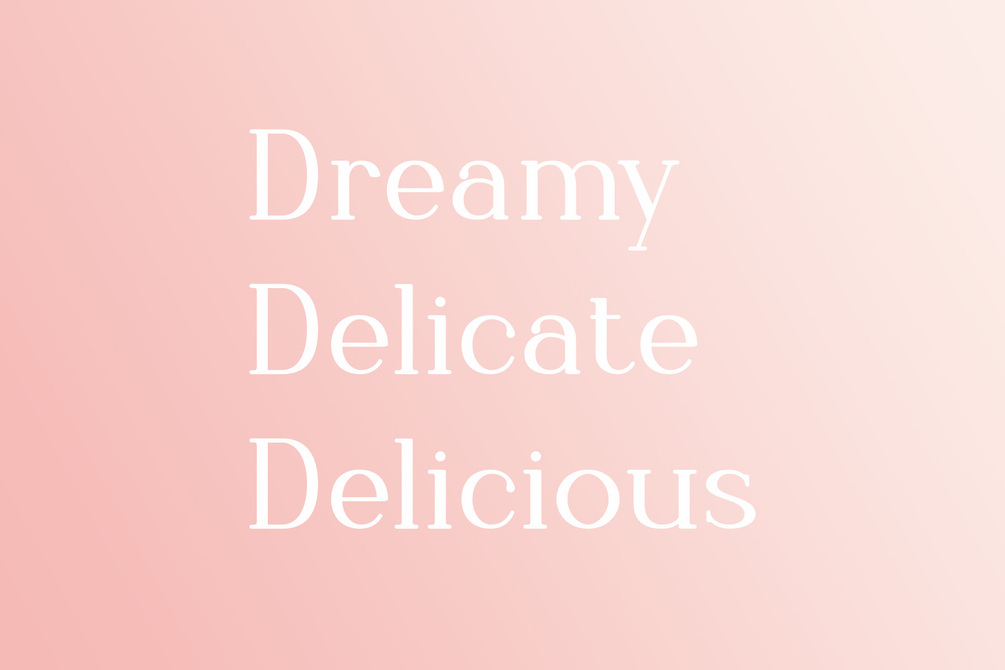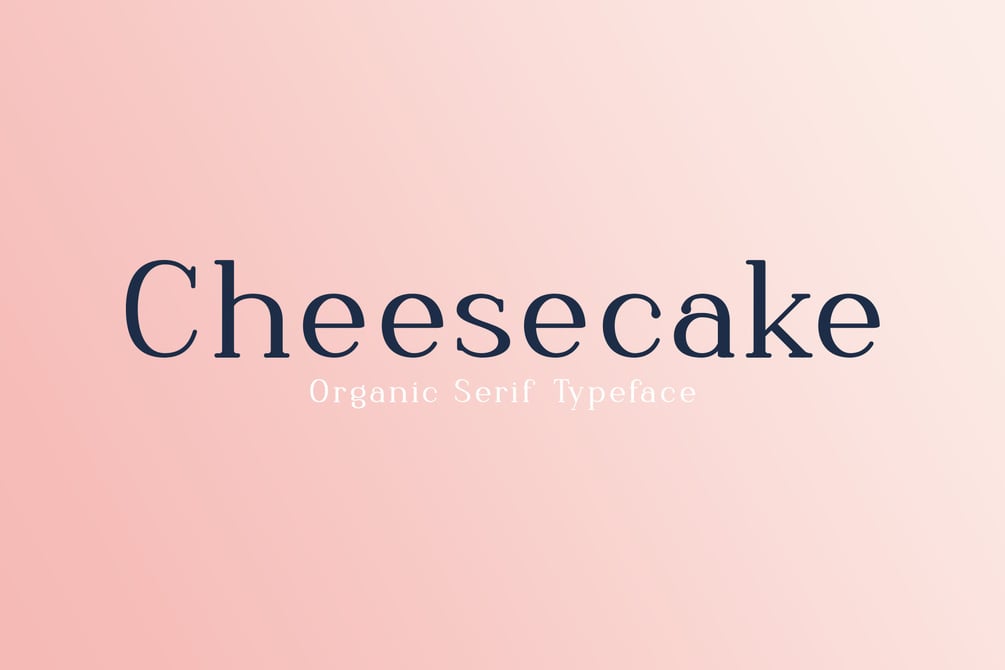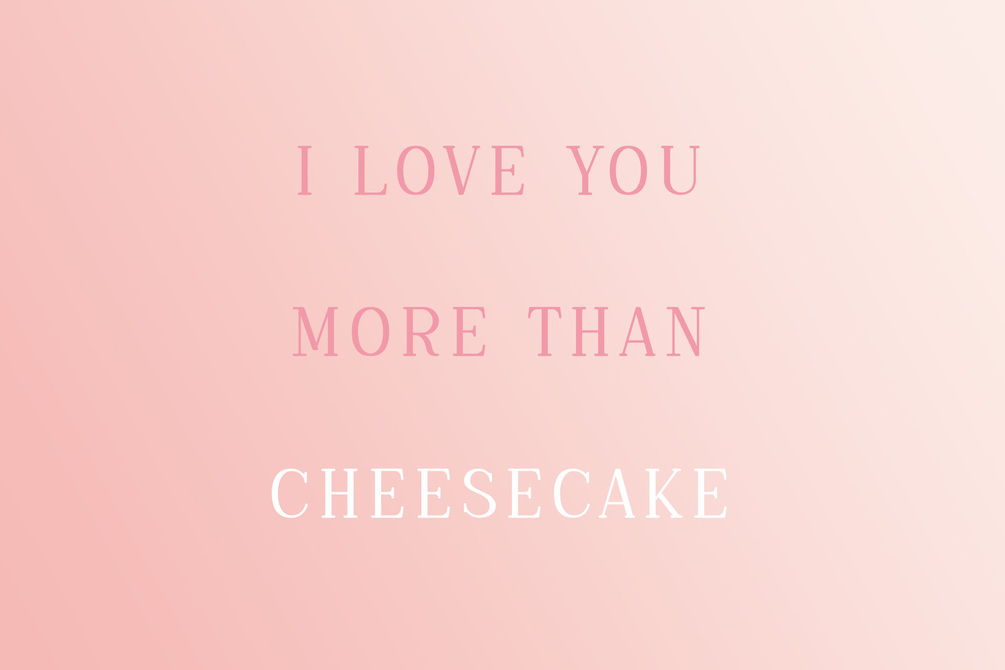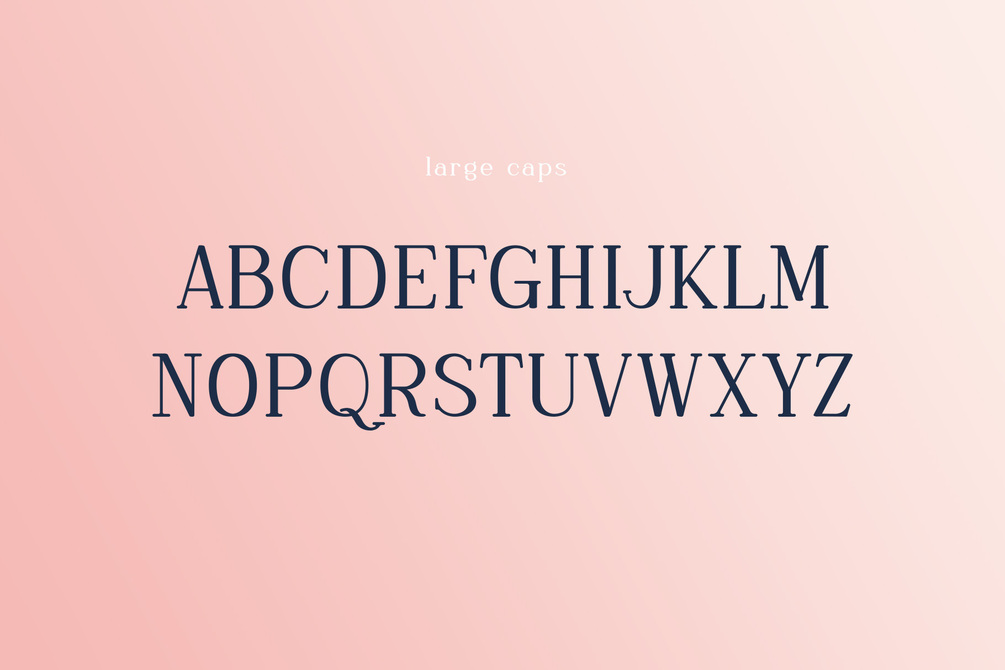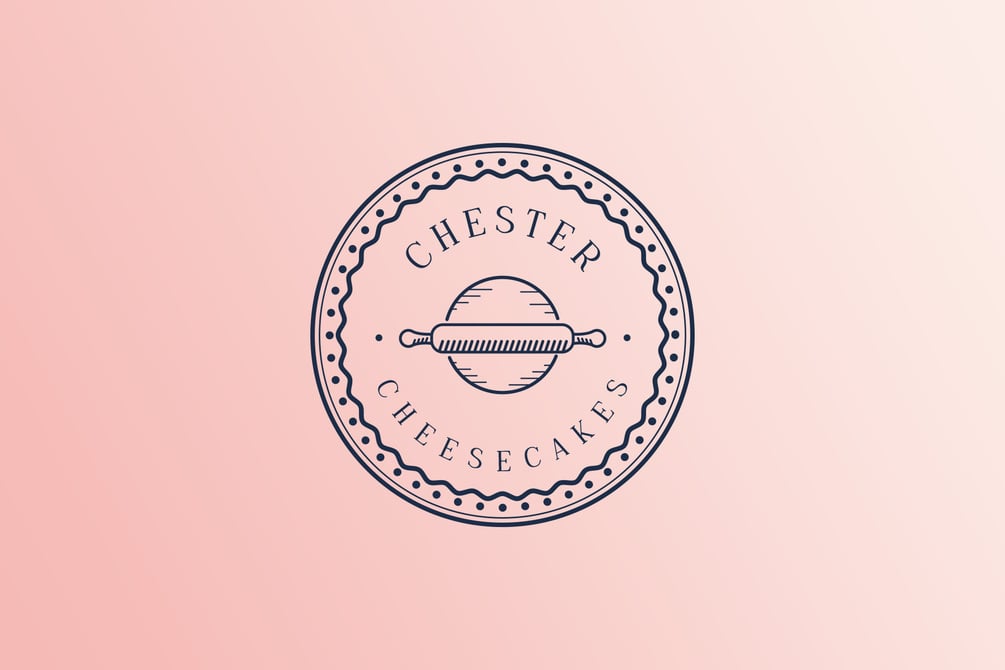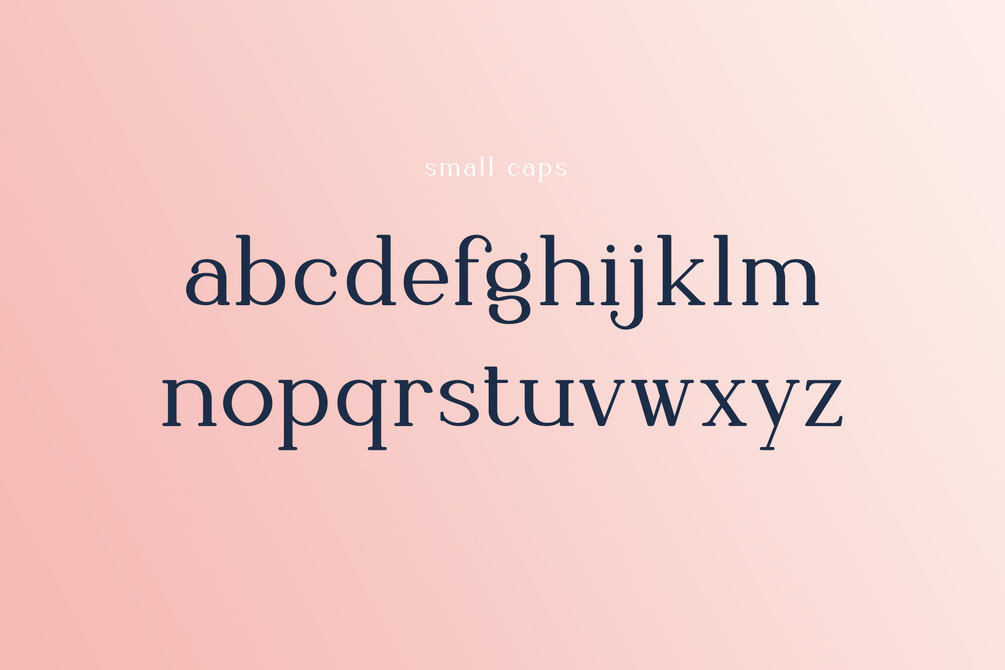
Cheesecake - Organic Serif Typeface
Cheesecake is a delicious organic serif typeface for your projects. It's perfect for branding, logos, initials, invitations, blogs, social media restaurant menus, and much more!
With lowercase, uppercase, and all basic English characters inside, Cheesecake is the perfect addition to your typeface arsenal.